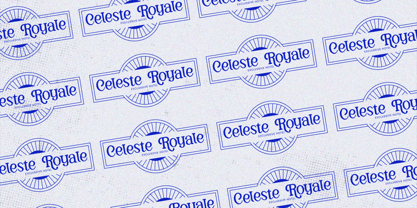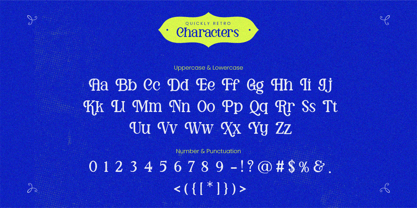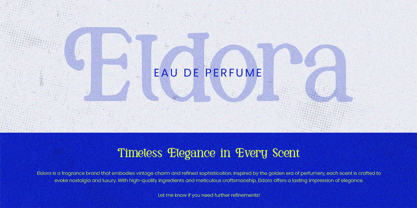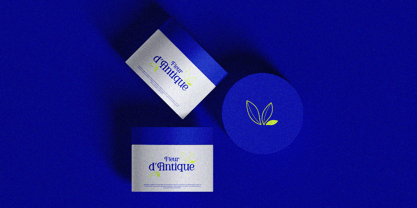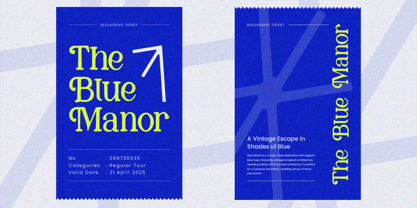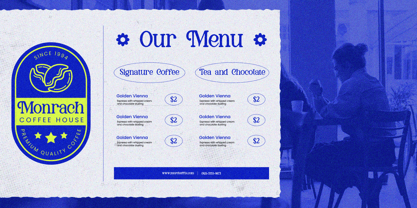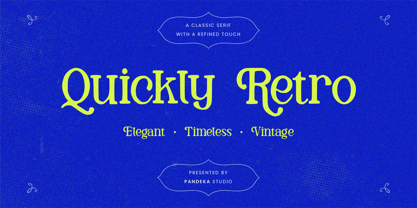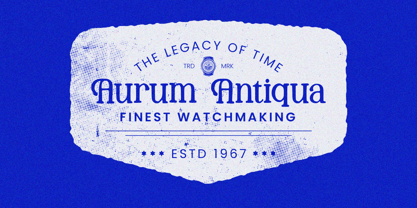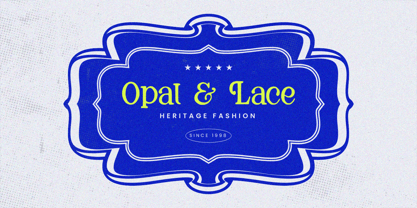
Quickly Retro
The Quickly Retro Font Family was designed by Sagara Nararya and published by Pandeka Studio. Quickly Retro contains 1 styles. More about this family
Quickly Retro – Classic Elegant Serif
Quickly Retro is a vintage-inspired serif font that blends timeless elegance with a retro aesthetic. Perfect for classic branding, editorial designs, packaging, book covers, stylish lettering, and sophisticated typography, it adds a refined yet nostalgic touch to any project.
• Full Character Set: Uppercase, lowercase, numbers, symbols, and punctuation